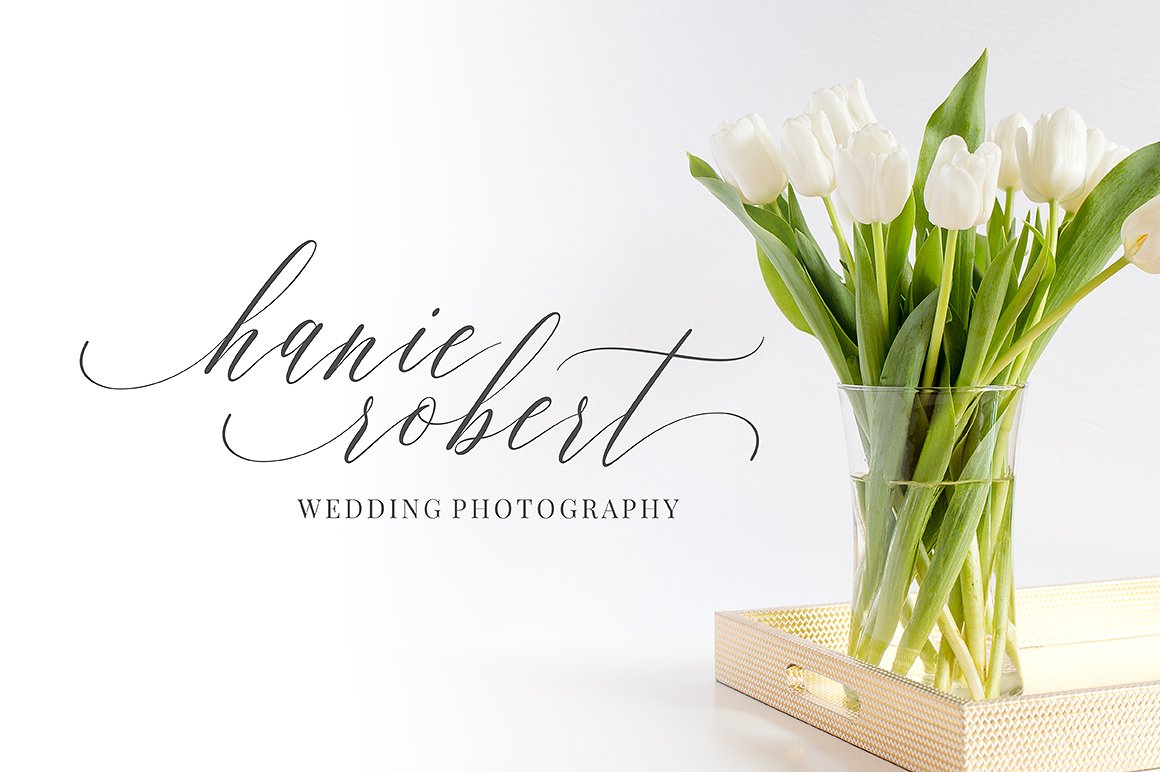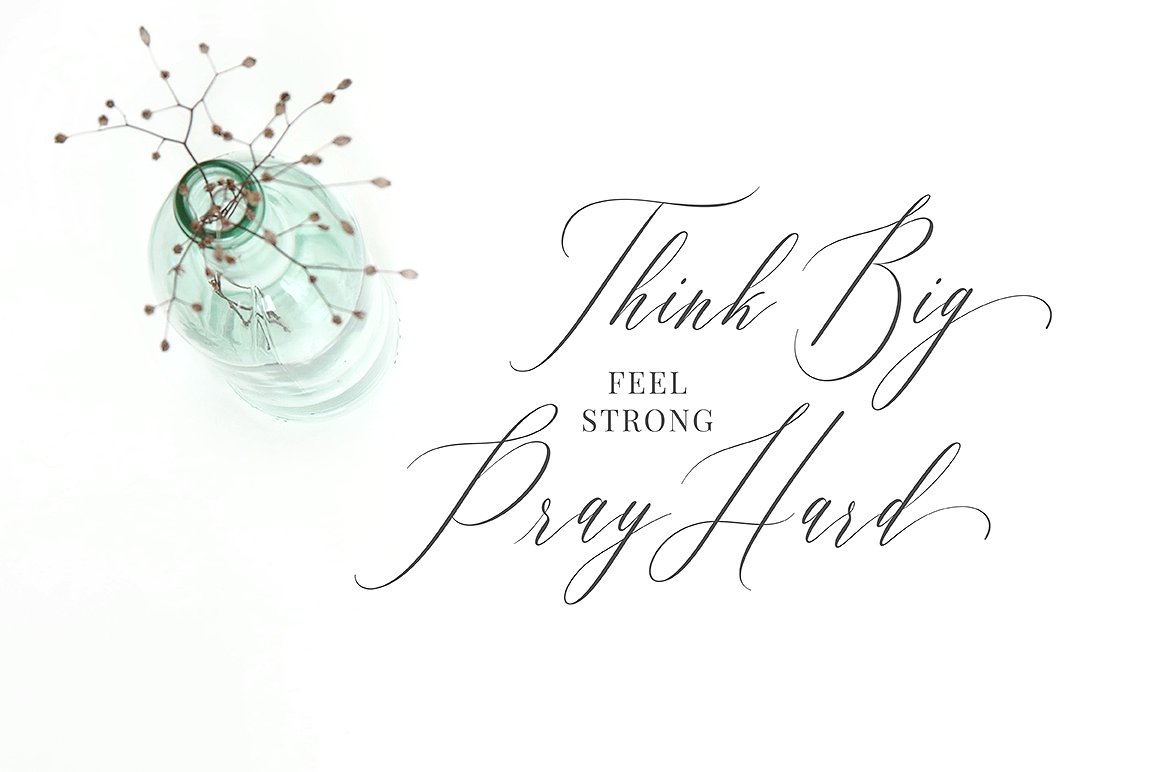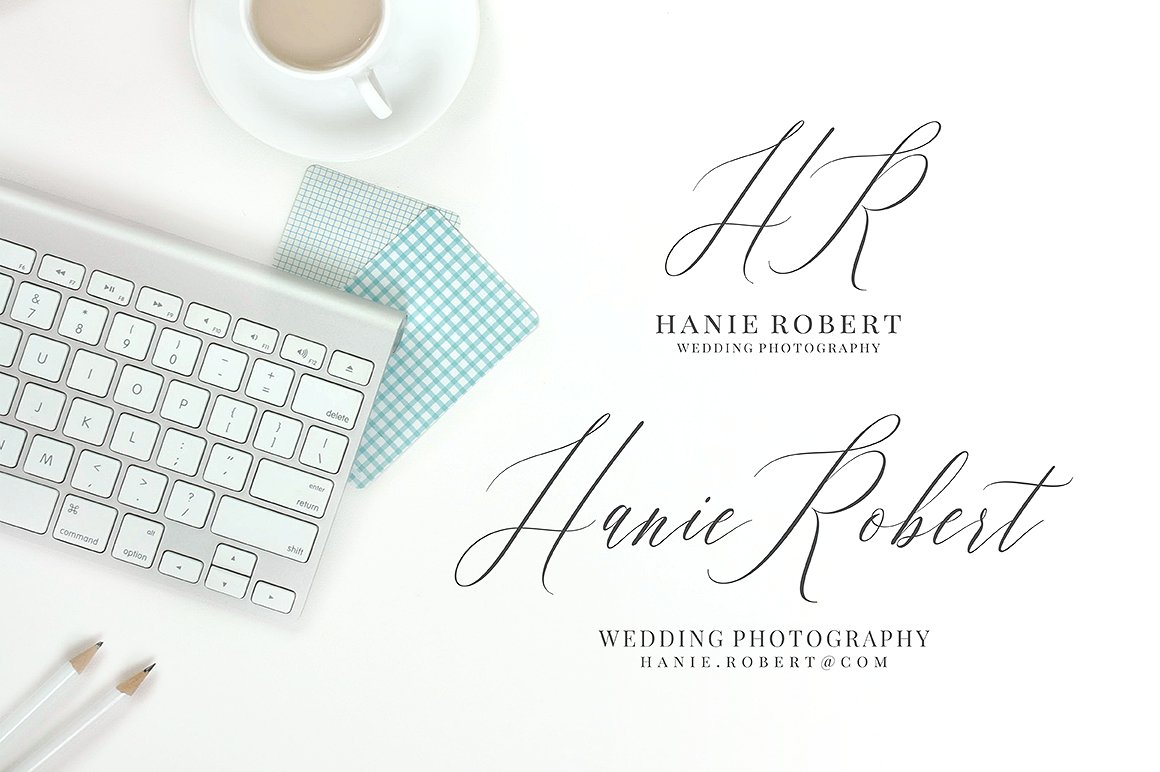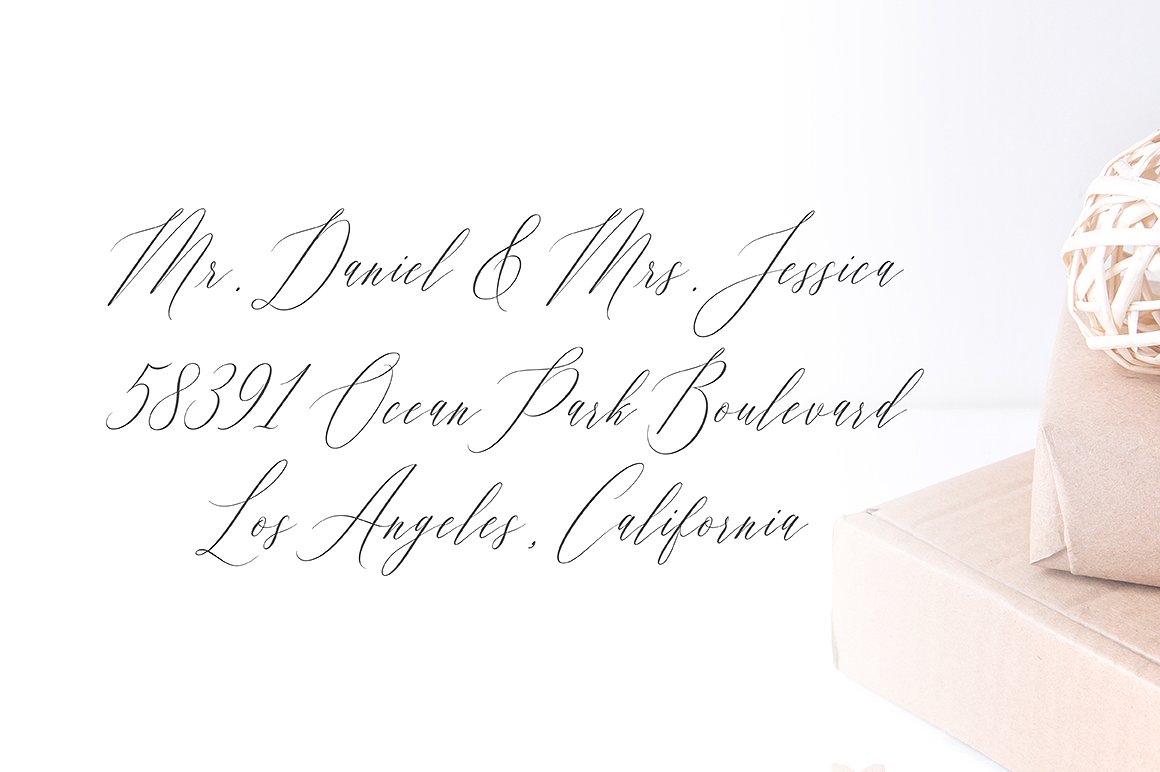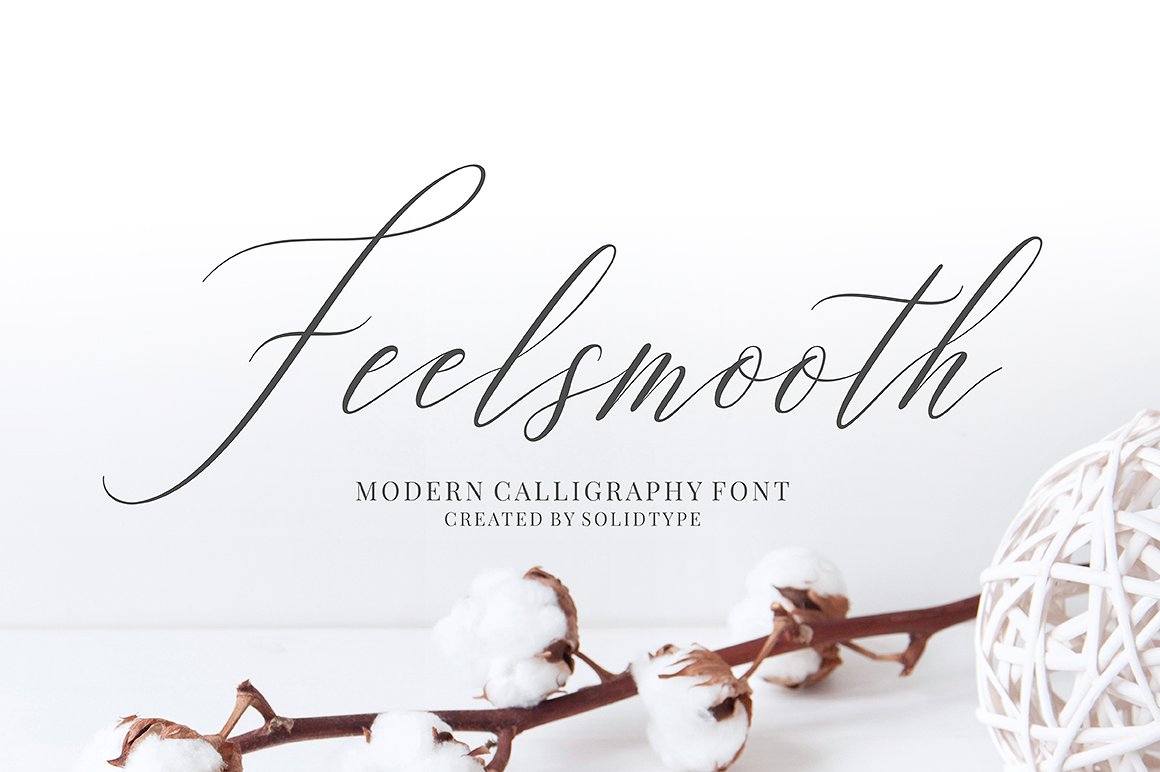
Feelsmooth Script Font
A modern calligraphy typeface, this font will perfect for many different project. Introducing Feelsmooth Font. A new modern calligraphy font that features a varying baseline, smooth line, classic and elegant touch. Feelsmooth Script features 350+ glyphs and 167 alternate characters. It is perfect for logo, greetings, branding, quotes, prints, invitations and crafting. All lowercase letters include alternates, beginning & end swashes, that makes the font look fabulous!